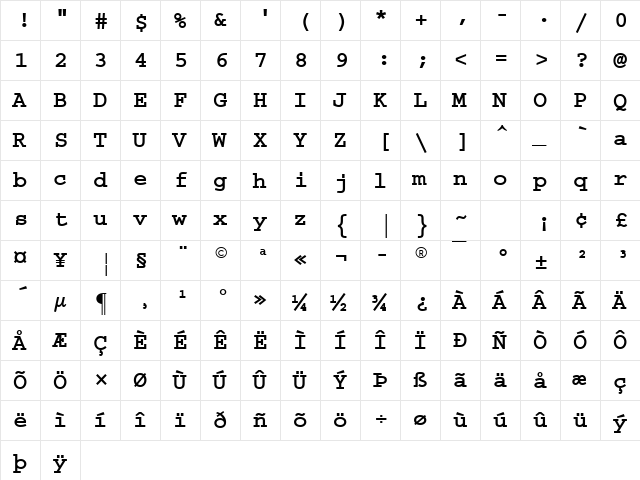
Courier (W1) Bold
Design Context for Courier (W1) Typeface
Courier (W1) brings the precise, column-aligned rhythm of monospaced typography to designs that value technical clarity and systematic order. The heavy weight commands attention and anchors typographic hierarchies.
Pro Tip: Pair Courier (W1) with a proportional sans for UI contexts where code-style labels and regular body copy need to coexist.